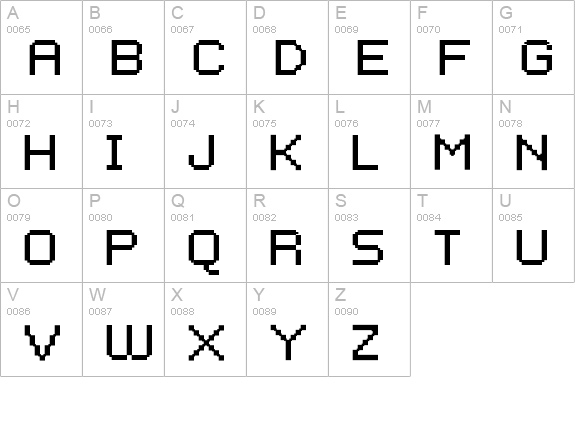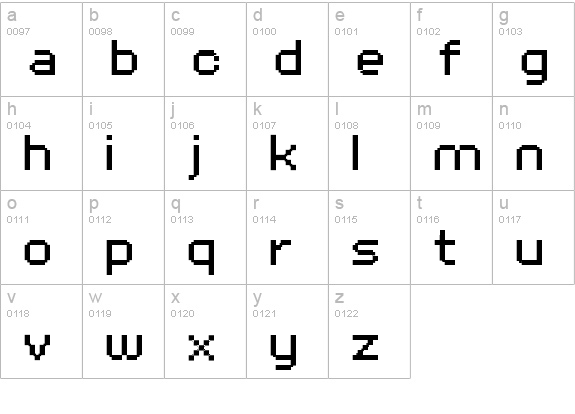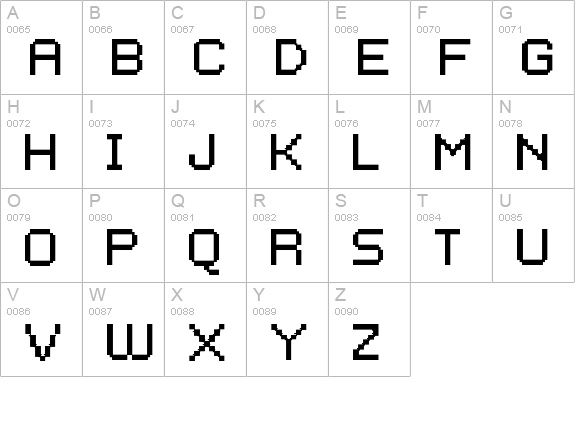
FFF Business Extended is a distinctive, extended-width variant in the FFF typeface family \xE2\x80\x94 well suited to design and typography projects.
The FFF Business Extended font is a modern and sleek typeface designed for professional use. Its clean lines and sharp edges make it perfect for creating a polished and sophisticated look in any project. This versatile font is ideal for a wide range of design applications, from business presentations to advertising materials and more. What sets FFF Business Extended apart is its unique blend of elegance and functionality. The extended character set allows for increased flexibility and creativity in typography, making it a valuable addition to any designer's toolkit. Whether you're looking to create bold headlines or stylish body text, this font has you covered. Best of all, FFF Business Extended is available for free download at FontsMarket.com. This means you can start using this high-quality font in your projects right away, without having to worry about any additional costs. Don't miss out on the opportunity to elevate your designs with the FFF Business Extended font today!